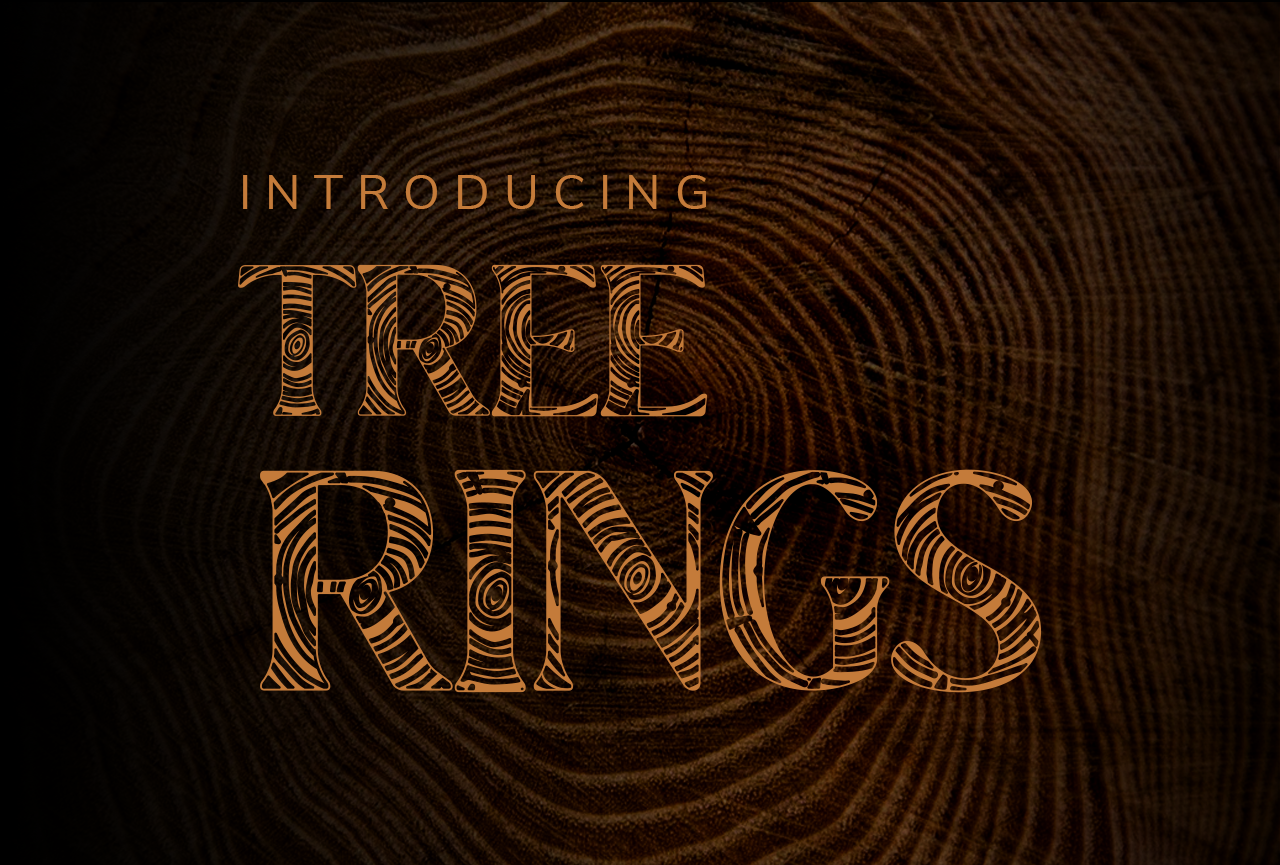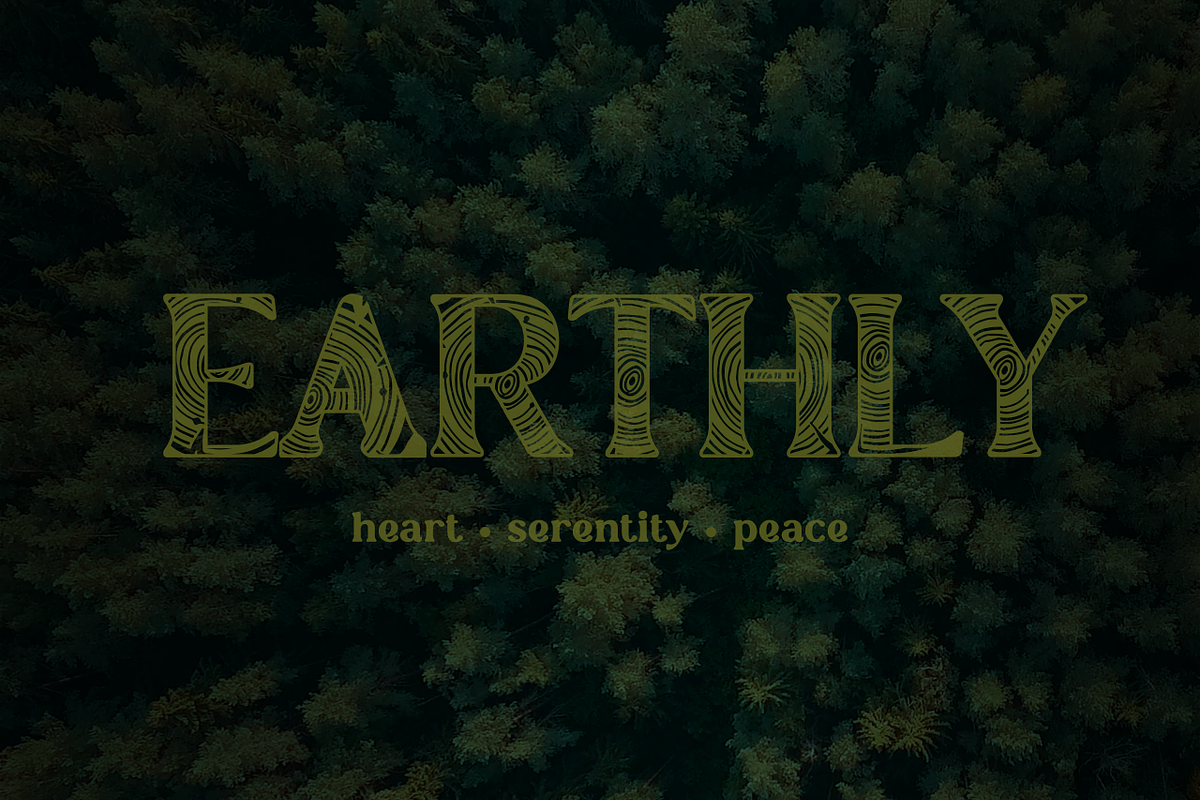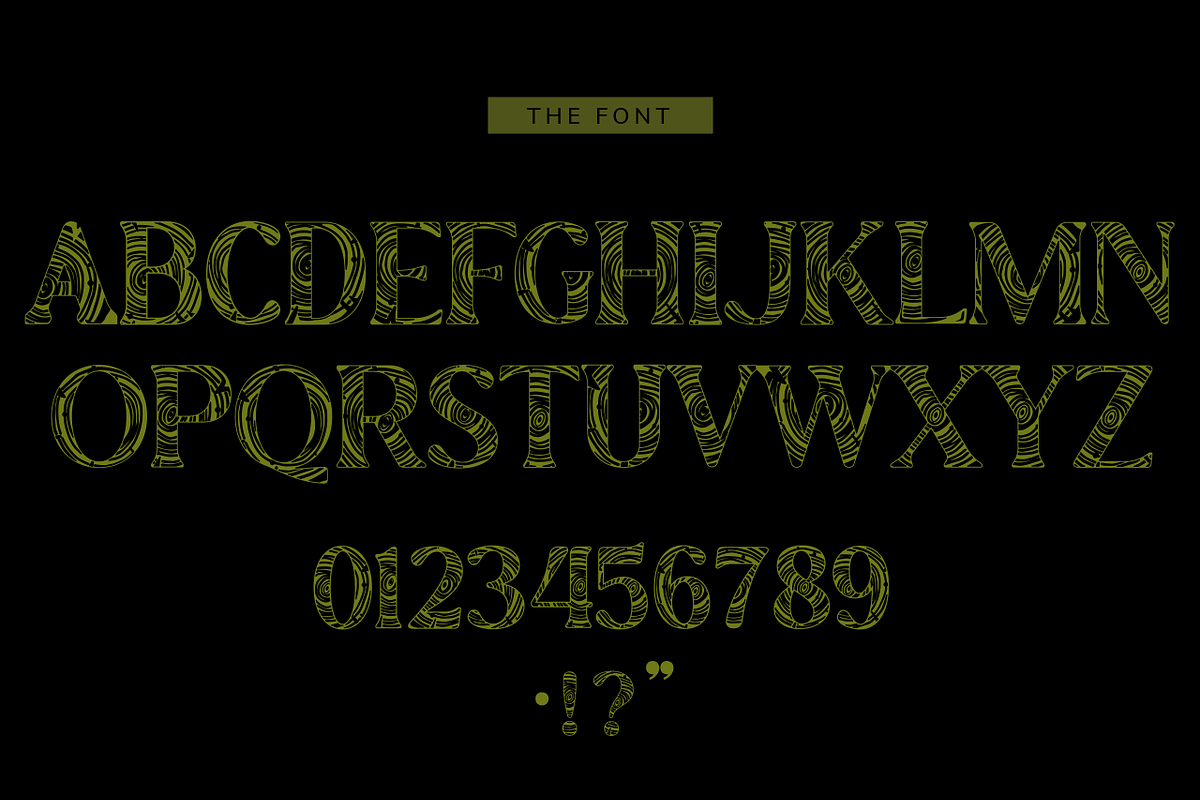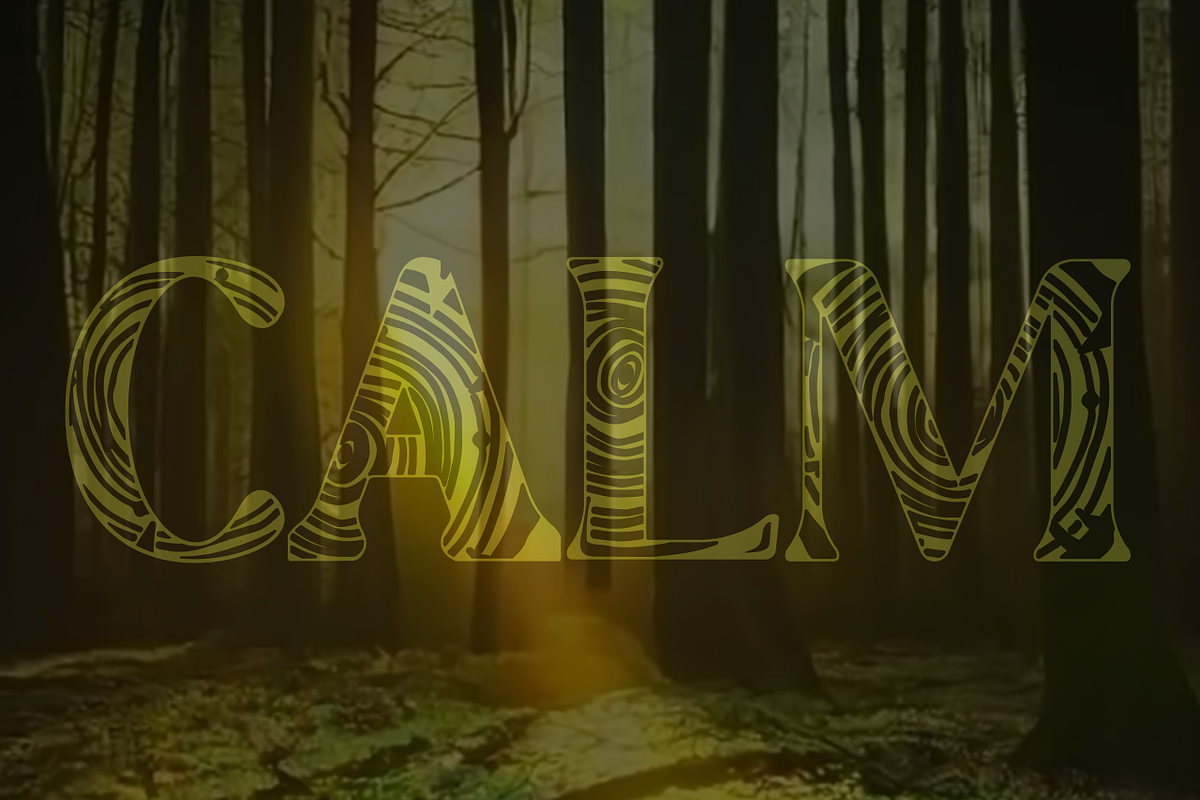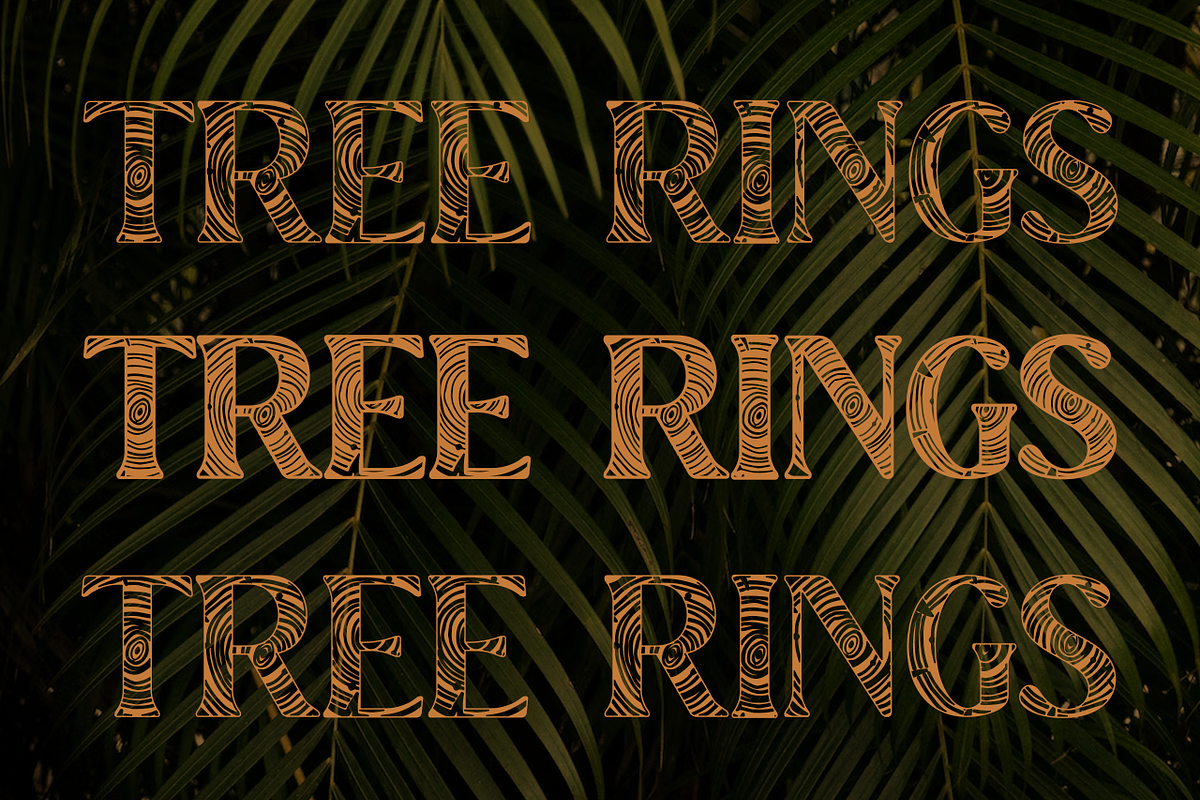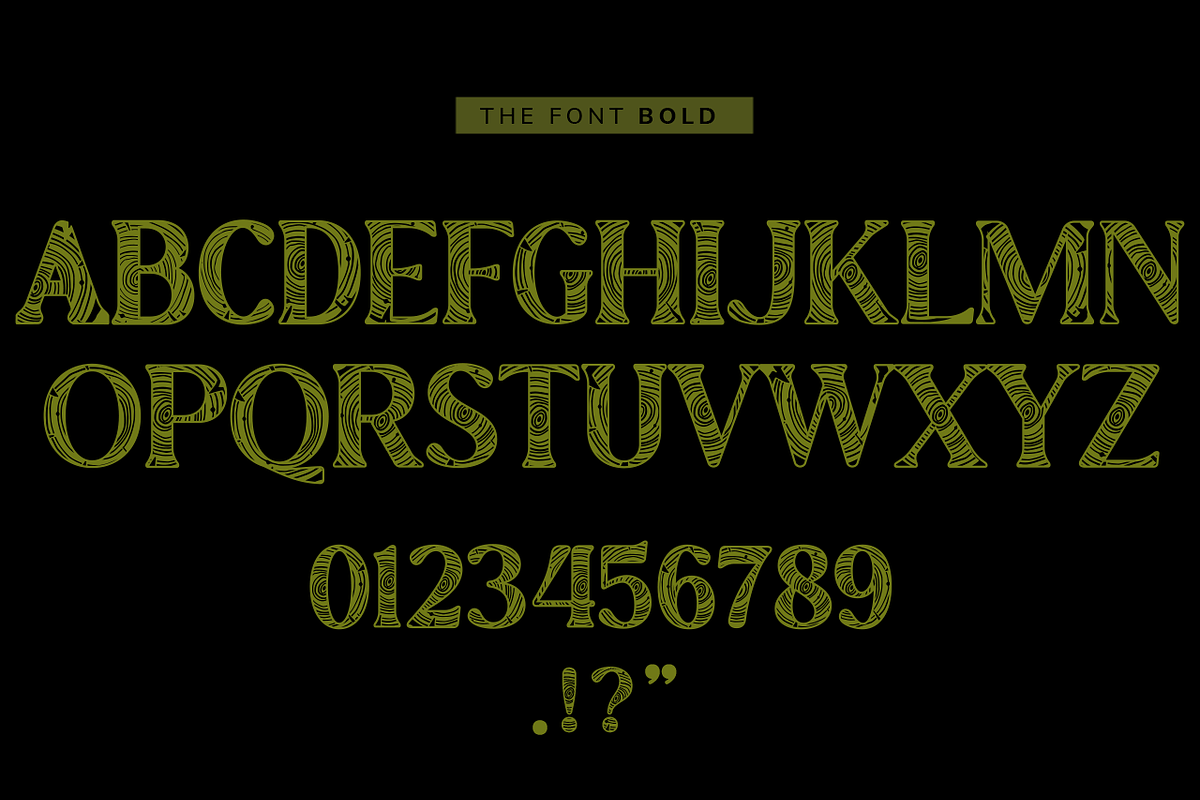
Tree Rings Font
Tree Rings lets you get in touch with your inner earth mother. Grounded, organic, and a rather earthly feel.
Great for logos, type, headlines, clothing, covers, & posters.
Uppercase & Lowercase (lowercase font can be seen on the 'EARTHLY' slide) Number, Punctuation And Symbols